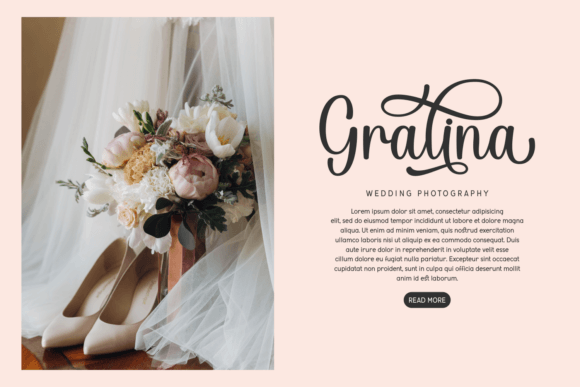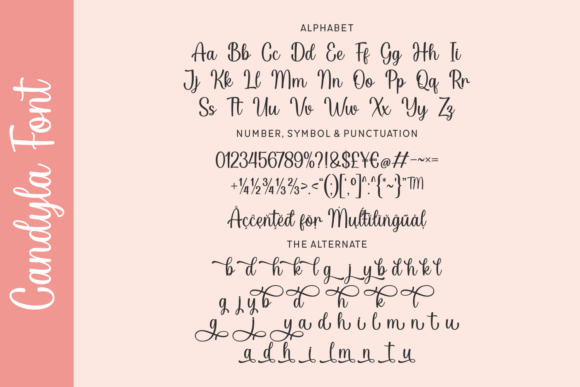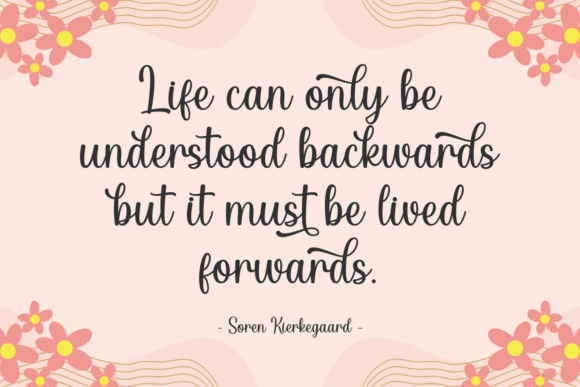
Candyla Font: Elevate Your Designs with Elegant Swashes
In the world of typography, fonts play a crucial role in conveying the tone and aesthetic of a design. For designers and crafters looking to add a touch of sophistication and artistry to their work, the Candyla Font is an excellent choice. This beautiful script font features elegant swashes that instantly elevate any design, making it perfect for those seeking to make a lasting impression.
The Characteristics of Candyla Font
Candyla is a stunning script font that boasts clean lines and smooth curves, giving it a refined and polished look. Its elegant swashes add a unique and artistic flair, setting it apart from more traditional fonts. Despite its ornate features, Candyla remains easy to read, making it a versatile choice for a wide range of design applications.
Perfect for Adding a Stylish Touch
Whether you’re working on a branding project, creating invitations, or designing social media graphics, Candyla Font is the perfect choice for adding a stylish touch. Its sophisticated look and feel make it ideal for designs that require a level of elegance and refinement. From fashion and beauty brands to wedding and event planners, Candyla Font is sure to impress.
Key Features of Candyla Font
- Elegant Swashes: Candyla’s swashes add a touch of artistry and sophistication to any design.
- Clean Lines and Smooth Curves: The font’s clean lines and smooth curves give it a refined and polished look.
- Easy to Read: Despite its ornate features, Candyla remains easy to read, making it perfect for body text and headings.
- Versatile: Candyla Font is suitable for a wide range of design applications, from branding and advertising to packaging and more.
How to Use Candyla Font in Your Designs
Using Candyla Font in your designs is easy. Here are a few tips to get you started:
- Pair it with a Simple Font: Pair Candyla Font with a simple font for body text to create a striking contrast.
- Use it for Headings: Use Candyla Font for headings and titles to add a touch of elegance and sophistication.
- Experiment with Swashes: Experiment with Candyla’s swashes to add a unique touch to your designs.
Why Designers and Crafters Love Candyla Font
Designers and crafters love Candyla Font for its unique combination of elegance and versatility. Here are a few reasons why:
- Unique and Artistic: Candyla’s swashes give it a unique and artistic flair that sets it apart from other fonts.
- Elegant and Refined: The font’s clean lines and smooth curves give it a refined and polished look.
- Easy to Use: Candyla Font is easy to use and pairs well with a wide range of other fonts.
In conclusion, Candyla Font is a beautiful script font that features elegant swashes, clean lines, and smooth curves. Its unique combination of elegance and versatility makes it perfect for designers and crafters looking to add a stylish touch to their designs. Whether you’re working on a branding project, creating invitations, or designing social media graphics, Candyla Font is sure to impress.